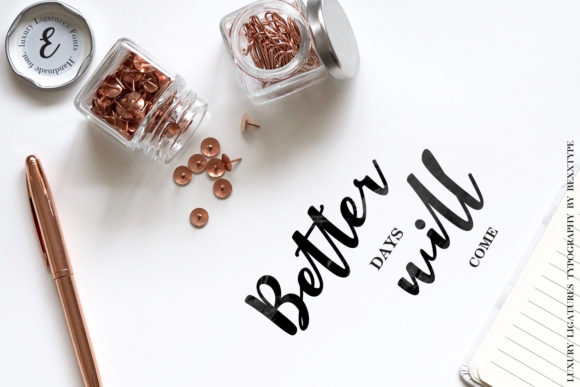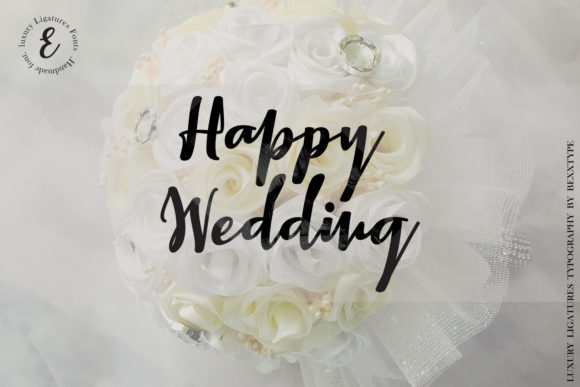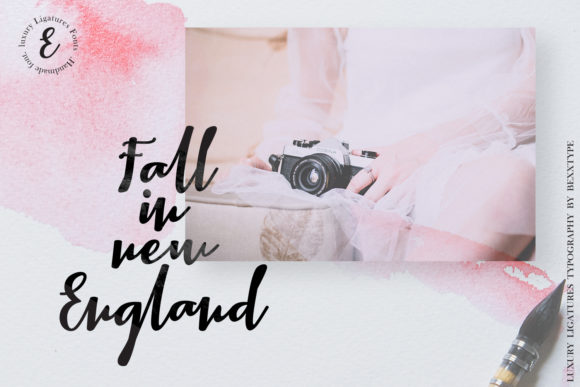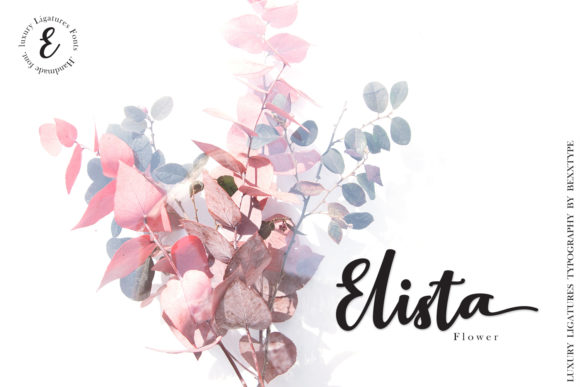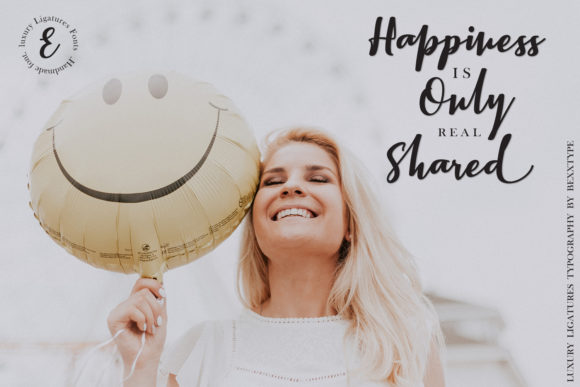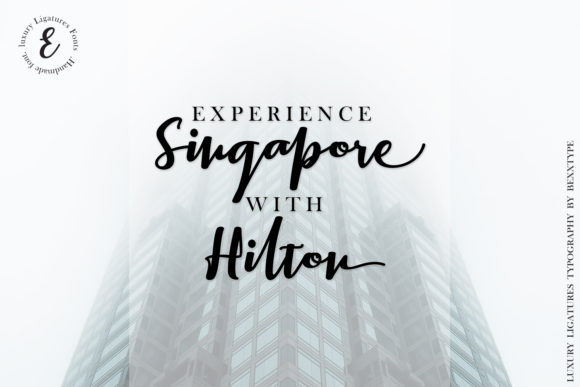
The Perfect Brushstroke: Unleashing the Beauty of Elistabeta Script Font
Have you ever been inspired by a beautiful font and felt the urge to create something magical with it? For designers, this moment is a familiar sensation, and it’s what drives us to experiment and push the boundaries of creativity. It’s in these moments that we stumble upon fonts like Elistabeta Script Font, which become the perfect catalyst for our imagination.
Elistabeta Script Font is a stunning calligraphy font that exudes elegance and sophistication. Its modern feel, paired with decorative characters and a dancing baseline, makes it a versatile choice for various design projects. From business cards and wedding stationery to posters and headlines, Elistabeta Script Font is the perfect tool for designers who want to add a touch of luxury and whimsy to their work.
Elistabeta Script Font Key Features
- Font Type: Handwritten Script Font
- Unique Characteristics: Elegant, cursive, and decorative script style with flourished connections and subtle variations in letterforms
- Language Support: Multilingual support for over 100 languages, including Latin, Cyrillic, and Greek scripts
- Font Weight: Regular and Bold weights available for flexible design and styling options
Elistabeta Script Font Review
Overall, I was quite impressed with Elistabeta Script Font. It’s a beautiful, elegant script font that works well for a variety of applications, from branding and marketing materials to wedding invitations and social media graphics. ✨ The font has a very personal, handwritten feel that’s perfect for adding a touch of warmth and personality to your designs.
- Beautiful, elegant design: Elistabeta Script Font is a stunning addition to any design project. It’s perfect for adding a touch of sophistication and elegance to your work.
- Highly customizable: The font comes in a range of weights and styles, making it easy to customize to fit your design needs.
- Works well in digital and print formats: Elistabeta Script Font looks great on both digital screens and printed materials.
However, there are a few limitations to be aware of: ⚠️ The font can be a bit tricky to read in smaller sizes, and it may not be suitable for body text. Additionally, the font’s highly ornate design can make it difficult to pair with other fonts.
Overall, I would highly recommend Elistabeta Script Font for any design project that requires a touch of elegance and sophistication. With a little bit of care and attention, this font can add a beautiful, personal touch to your designs.
For best results, use Elistabeta Script Font for headings and titles, as it is a script font and can be difficult to read in small sizes.
For best results, use Elistabeta Script Font for decorative elements and titles, as it is a script font and can be difficult to read in large blocks of text.
For best results, use Elistabeta Script Font for headings and titles, as it is a script font and can be difficult to read in small sizes.
Elistabeta Script Font is ideal for use in wedding invitations, greeting cards, and other decorative elements.
It is also great for use in social media graphics and blog posts where a touch of elegance is desired.
Remember to use Elistabeta Script Font sparingly, as it can be overwhelming if used too much.
Alternatives to Elistabeta Script Font for Designers
Carolyna Pro is a elegant, high-end script font designed for luxury branding and high-end advertising. It’s perfect for creating a sophisticated and premium look. When to use: Luxury branding, high-end advertising, and any project that requires a touch of elegance.
Comparison: Carolyna Pro has a more refined and sophisticated look compared to Elistabeta Script Font, making it ideal for high-end projects. Elistabeta Script Font has a more playful and modern feel, whereas Carolyna Pro exudes luxury and sophistication.